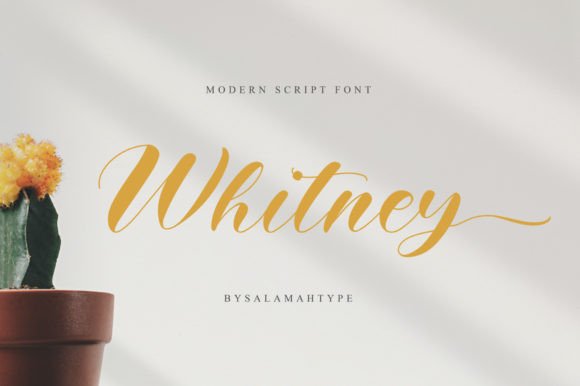
Whitney Font Download Script Fonts: Typography is more than just letters on a page — it’s the voice of your design, the emotion behind your message, and the bridge between your ideas and your audience. Among the many beautiful script fonts available today, Whitney Font stands out as a refined and versatile choice. With its elegant curves, smooth strokes, and calligraphic flair, Whitney effortlessly blends classic sophistication with modern charm.
Whether you’re designing wedding invitations, crafting social media graphics, creating personal stationery, or branding a business, Whitney’s unique handwritten style ensures your project feels personal, warm, and timeless.
1. What is the Whitney Font?
The Whitney Font is a handwritten script typeface inspired by classic calligraphy but refined for today’s design needs. Each letter is thoughtfully drawn to maintain balance and flow, making text look naturally handwritten yet clean and professional. It offers:
Fluid, graceful strokes – each letter flows seamlessly into the next.
A perfect blend of vintage and modern – ideal for both traditional and trendy projects.
High legibility – even at smaller sizes, Whitney remains clear and easy to read.
Its charm lies in its adaptability: Whitney works equally well for elegant branding as it does for casual, heartfelt messages.
2. Key Features of Whitney Font
If you’re wondering why Whitney is gaining popularity among designers, here’s what makes it special:
Handcrafted Lettering – Looks like it was penned by a skilled calligrapher.
PUA Encoded – Easy access to extra glyphs, swashes, and stylistic alternates.
Versatile Weight and Style – Works for both headlines and body text in creative projects.
Smooth Curves & Ligatures – Adds a natural, flowing feel to words.
3. Best Uses for Whitney Font
Because Whitney offers a timeless script style, it’s a go-to font for projects where elegance is key. Here are some great ways to use it:
Wedding Invitations & Stationery
Whitney adds romance and sophistication to wedding materials — from invites and RSVP cards to menus and thank-you notes.
Branding & Logos
Perfect for boutique businesses, salons, florists, and high-end products that want to express style and personality.
Social Media Graphics
Pair Whitney with modern photography for Instagram posts, Pinterest pins, and Facebook covers that stand out.
Event Announcements
From birthdays to engagement parties, Whitney sets the tone for a memorable occasion.
Printables & Home Decor
Use it in posters, framed quotes, planners, or scrapbooking projects to give them a refined touch.
4. Whitney Font Pairing Suggestions
Typography works best when paired thoughtfully. Whitney’s handwritten style complements both serif and sans-serif fonts. Here are some pairing ideas:
Whitney + Montserrat – Modern elegance with a bold, clean balance.
Whitney + Playfair Display – Romantic and vintage pairing for classy projects.
Whitney + Open Sans – Professional yet friendly combination.
When pairing, let Whitney handle headlines or accents while the other font takes care of body text.
7. Tips for Using Whitney Font Effectively
Even the most beautiful font needs the right design context to shine. Here are a few pro tips:
Use ample spacing – Script fonts look better when they have room to breathe.
Avoid overuse – Reserve Whitney for headlines, titles, or short phrases.
Combine with minimal design – Let the font be the focal point.
Use high-resolution graphics – Smooth strokes look best in quality visuals.
8. Alternatives to Whitney Font
If you like Whitney but want to explore similar styles, consider:
Alex Brush – Elegant and flowing calligraphy.
Great Vibes – A classic script with more flourish.
Allura – Light and graceful for a delicate feel.
Dancing Script – More casual and playful handwritten style.
9. Whitney Font in Action – Creative Examples
Imagine your name written in Whitney across a glossy wedding invitation. Or your café’s logo in gold foil script on a dark menu board. Whitney isn’t just a font; it’s a design statement. Its smooth flow adds warmth and a personal touch that makes people stop and look.
Final Thoughts
The Whitney Font is more than just a typeface — it’s a touch of elegance, a whisper of artistry, and a designer’s tool for creating unforgettable visuals. Whether you’re a graphic designer, DIY crafter, small business owner, or someone looking to add beauty to their personal projects, Whitney’s smooth, calligraphic style is an asset you’ll reach for again and again.